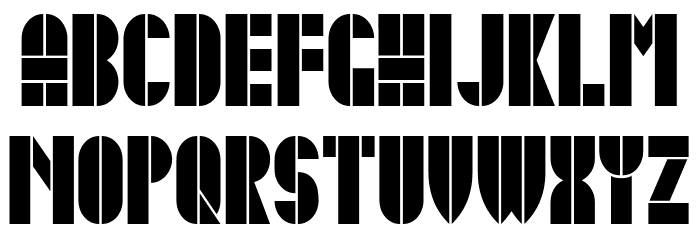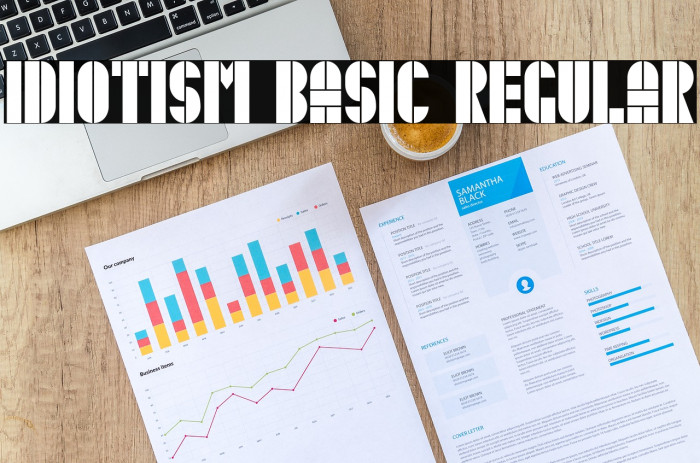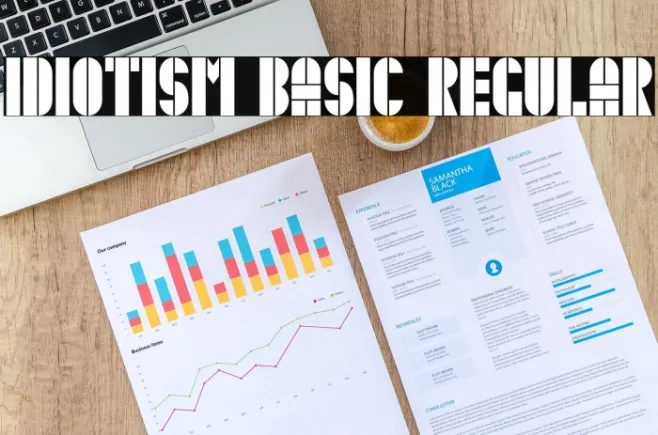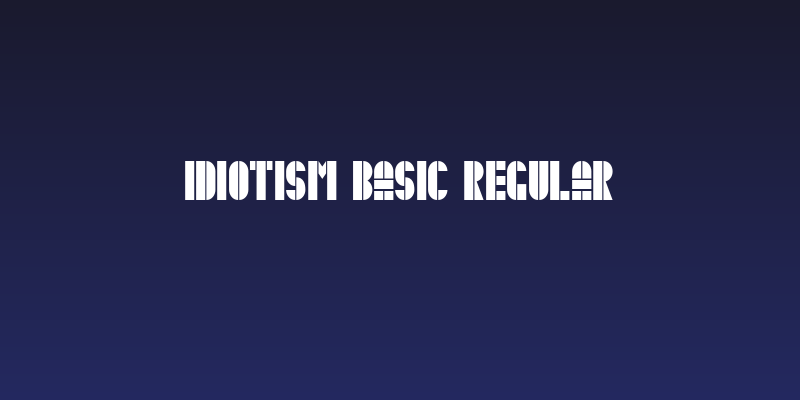
Idiotism Basic Regular Font
Idiotism Basic Regular Description
This font features a bold, geometric design with a strong emphasis on vertical and horizontal lines, creating a stencil-like appearance. The characters are constructed with solid blocks and negative spaces, giving them a modern and industrial feel. The uppercase letters are particularly striking, with their uniform height and width, while the lowercase letters maintain the same bold style. The numbers and special characters follow the same design principles, ensuring consistency throughout the font. This font's unique style makes it stand out, ideal for projects that require a bold and eye-catching typeface.
| Proposed Projects | Ideal for branding, posters, headlines, and any design requiring a strong visual impact. |